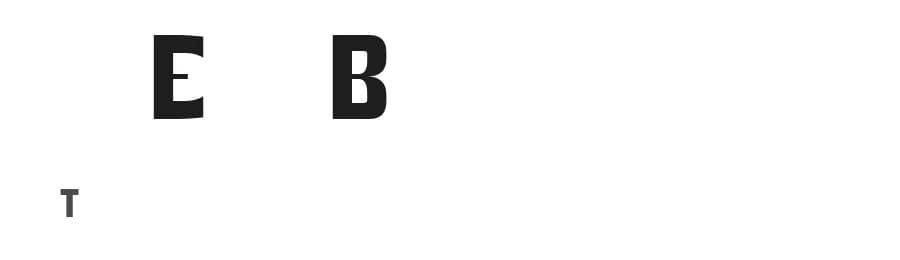
About Ez-Bekario Font
Ez-Bekario Specifications
| Font Family | Ez-Bekario |
| Full Name | Ez-Bekario Sans Modern Display |
| Glyph Count | 42 glyphs |
| PostScript Name | EzBekario-SansModernDisplay |
| Designer | Muhammad Faiz |
Ez-Bekario Font is a versatile sans-serif font that works for both headings and body text. Pair it with a contrasting serif or slab serif font to add visual interest and a clear distinction between titles and body copy.
Ez-Bekario Font
by Eztudio